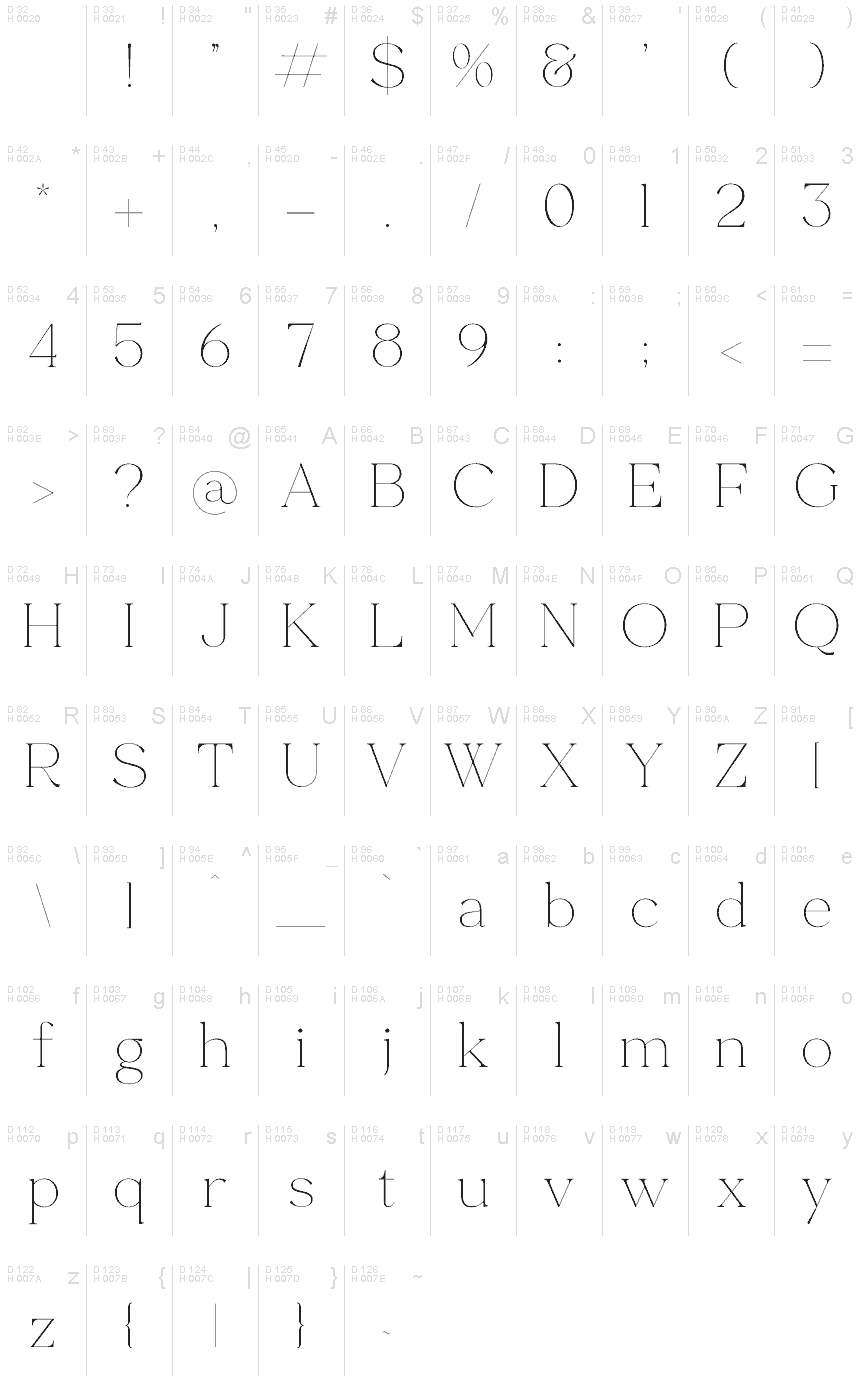
Merliha
Merliha font is a light serif font from Storytype Studio built with elegant details and refined curves. Its sophisticated appearance and modern minimal aesthetic make it easy to read and easy to pair with other typographic choices. Find many visual elements in this serif font, some new, some recognizable.
Use the free serif font in online magazines, journals, newspapers as well as editorial projects in print. Create stand-out logos for beauty products or fashion businesses and produce eye-catching ecommerce websites or product listings. Do the same for blog posts by adding interesting headlines and cover images that attract readers’ attention immediately!